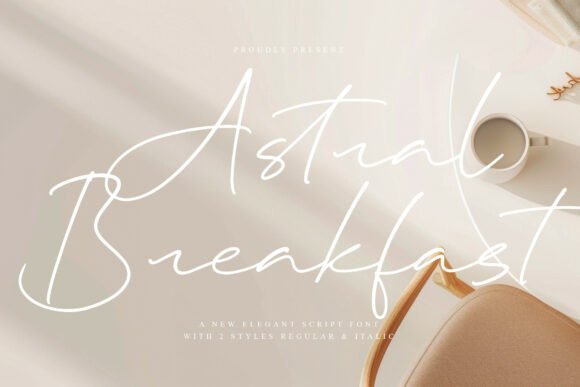
Astralbreakfast Regular: The Elegant Script Font That Elevates Your Brand Identity
In a digital landscape saturated with bold sans-serifs and rigid geometric typefaces, finding a font that truly exudes warmth and sophistication can feel like searching for a needle in a haystack. This is where Astralbreakfast Regular steps in as a game-changer for creators who refuse to compromise on style. Crafted by Operatype, this sophisticated script font is not just another decorative element; it is a tool designed to bring refined charm to your most stylish projects. With its graceful strokes and polished curves, the typeface radiates a sense of luxury that immediately elevates the perceived value of any design it touches.
Whether you are a small business owner trying to make your packaging stand out on a crowded shelf or a blogger looking to add a personal touch to your social media graphics, understanding how to leverage this typeface is crucial. It bridges the gap between professional polish and artistic flair, making it an essential asset for anyone aiming to communicate elegance without saying a word.
Why Astralbreakfast Regular Stands Out in Modern Design
Many designers struggle to find fonts that balance readability with personality. Too often, script fonts become illegible when scaled down or look too chaotic when used in large blocks of text. Astralbreakfast Regular avoids these pitfalls entirely. Its structure is built on a foundation of stability, ensuring that while the letters dance with movement, they remain grounded enough to be read effortlessly.
The font's ability to radiate luxury comes from its specific attention to detail. The polished curves soften the edges of communication, making brands appear more approachable yet exclusive. This is particularly effective in industries where trust and aesthetic appeal go hand in hand. When you choose this font, you are signaling to your audience that you care about the finer details, a subtle psychological cue that can significantly impact user engagement and brand loyalty.
Real-World Applications for Personal Projects
For hobbyists and everyday users, the utility of Astralbreakfast Regular extends far beyond corporate logos. Imagine designing a wedding invitation suite that feels like a high-end fashion editorial. The graceful strokes of this font transform simple paper into a tactile experience, setting the tone for the entire event before a guest even reads the date.
- Personal Branding: Freelancers and creatives can use the font for their signature watermarks on photography portfolios. It adds a layer of professionalism that generic fonts simply cannot match.
- Holiday Cards & Greetings: Sending personalized holiday greetings becomes effortless. The warm, inviting nature of the script makes recipients feel valued, turning a standard message into a cherished keepsake.
- Home DΓ©cor: DIY enthusiasts can incorporate the font into custom wall art, framed quotes, or nursery decor. The elegant curves fit perfectly into modern farmhouse or bohemian aesthetics, adding a curated look to living spaces.
Commercial Success: From Packaging to Apparel
For entrepreneurs and small business owners, the visual identity of a product is often the first point of contact with a potential customer. In competitive markets like cosmetics, artisanal food, or boutique clothing, the difference between a "good" product and a "premium" one often lies in the typography. Astralbreakfast Regular is engineered to provide that premium touch.
Consider a startup launching a line of organic skincare. A label printed with a standard serif might look clean, but one featuring the fluid lines of Astralbreakfast Regular suggests natural elegance and high-quality ingredients. The font works exceptionally well on product labels, creating a seamless flow that guides the eye across the packaging. Similarly, for apparel brands, using this script on hang tags or woven labels can elevate a basic t-shirt into a statement piece.
Marketers and advertisers will also find significant value in this typeface for campaign assets. Social media posts that utilize Astralbreakfast Regular tend to capture attention faster because they break the monotony of blocky text. Whether it is a promotional quote for a new collection or a limited-time offer banner, the font adds a layer of exclusivity that encourages users to pause and engage.
Professional and Educational Uses
The versatility of this font means it isn't limited to commercial goods. Educators and publishers can use it to create engaging learning materials that don't feel dry or academic. For instance, a teacher creating a certificate of achievement or a workbook cover can use the font to make the material feel special and rewarding for students.
In the realm of editorial design, whether for a digital magazine or a print newsletter, Astralbreakfast Regular serves as an excellent display font for headlines and pull quotes. It draws the reader's eye to key information without overwhelming the body text. Publishers know that the right typography can increase retention rates, and the sophisticated tone of this script helps maintain a high level of interest throughout the content.
Ultimately, the success of any design project depends on the harmony between the content and the visual presentation. By integrating Astralbreakfast Regular thoughtfully into your workflow, you are not just selecting a font; you are curating an experience. Whether you are designing a logo for a new coffee shop, writing a heartfelt letter, or creating a marketing campaign for a luxury brand, this typeface offers the refined charm necessary to make your work memorable and impactful.